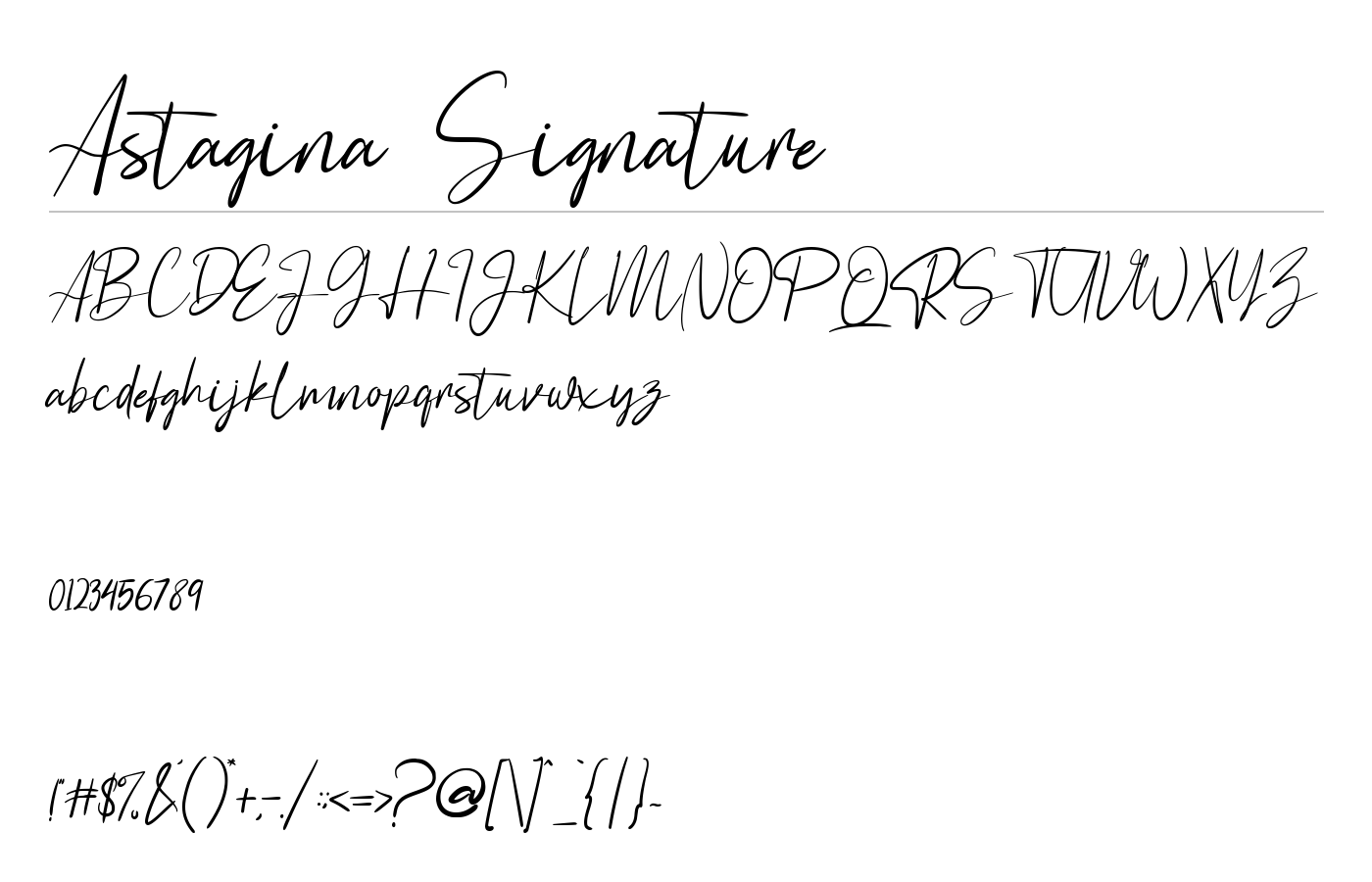
Astagina Signature is a delicate, elegant script font that mimics natural handwriting with a smooth, flowing style. It features fine lines with varied stroke thickness and slightly tall, narrow letterforms, making it perfect for creating a personal, sophisticated feel in branding, invitations, and stylish logos. This font adds a graceful, modern touch to any design needing a handwritten, refined look.
Astagina Signature Font
About Astagina Signature Font
| Font family | Astagina Signature Font |
| Designer | Green Adventure Std. 2020 |